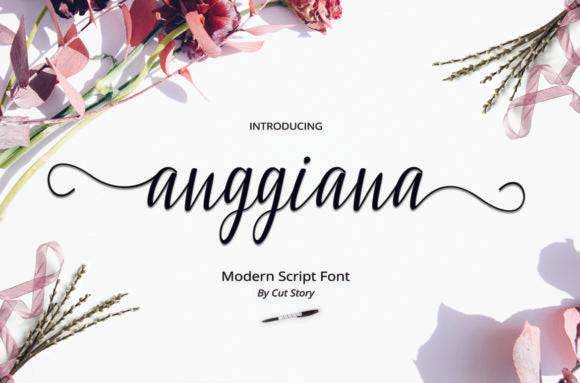
Anggiana Font for Cricut, Silhouette and Printable Designs
Anggiana is a beautiful script font designed for craft lovers and printable design creators. With graceful strokes and balanced spacing, it's ideal for creating heartfelt gifts, DIY decor, and stylish printables across Cricut and Silhouette platforms. Anggiana can easily be paired with other fonts for a stunning visual impact, elevating any project to new heights. For those seeking a more unique touch, consider incorporating the angling dharmo font for projects, as it complements Anggiana beautifully. Whether you’re designing wedding invitations or personalized stationery, this combination will surely impress. Whether you're personalizing a wedding invitation or designing custom t-shirts, Anggiana adds a touch of elegance to every project. For those looking to complement their designs further, consider pairing it with the antigua coast font for designs, which offers a rustic charm that truly enhances any creative endeavor. Together, these fonts provide endless possibilities for artistic expression, making every piece uniquely yours.
This font entity emphasizes clarity, personality, and smooth cutting performance, delivering professional results in both vinyl and printed materials. Whether for wedding items, branding, or home crafts, Anggiana adds elegance with ease.
- Wedding signage and invitations
- Vinyl decals and wall art
- Shirts, mugs, and gift tags
- Printable quotes and stationery
- Labeling, scrapbooking, and digital planners
- Gorgeous handwritten style
- Perfect for cutting and printable projects
- Clean lines and excellent readability
Q: What type of font is Anggiana?
A: Anggiana is a modern script font created for cutting and printable designs, featuring elegant curves and smooth readability.
Q: Can I use this font to design wedding invitations?
A: Yes, Anggiana is a perfect match for romantic printables and elegant wedding stationery.